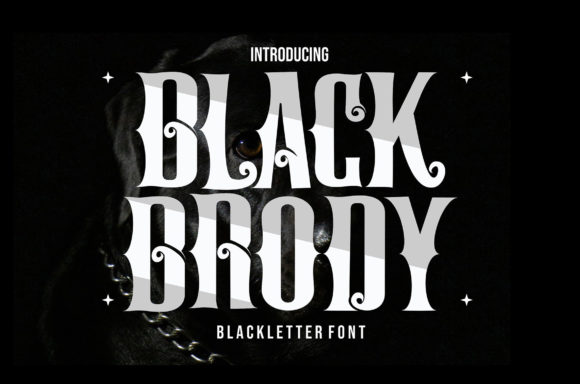
The Ultimate Guide to Black Brody Font: A Cool and Unique Blackletter Font
I’ll never forget the time I was working on a tattoo design project for a client who wanted a bold, edgy look. I had spent hours browsing through font libraries, but nothing seemed quite right. That was when I stumbled upon Black Brody Font, a cool and unique blackletter font that instantly caught my attention. With its original and assertive letters, it was perfect for the project. In this article, I’ll share my experience with Black Brody Font, its features, and how to make the most of it in your designs.
An Honest Review of Black Brody Font
What I Love About Black Brody Font
• ✨ Unique and original design: Black Brody Font stands out from other blackletter fonts with its distinctive and assertive letters.
• ✅ Perfect for bold designs: This font is ideal for creating striking designs that demand attention, such as tattoo designs, logo studio tattoos, shirt designs, posters, and branding.
• 💯 High-quality and versatile: Black Brody Font can be used for a wide range of projects, from digital designs to print materials.
While Black Brody Font is an excellent choice for many projects, there are a few things to keep in mind:
• 🤔 Limited use in formal designs: Due to its bold and edgy nature, Black Brody Font may not be suitable for formal designs, such as business cards or corporate branding.
• ⚠️ Legibility at small sizes: As with many blackletter fonts, Black Brody Font may be difficult to read at small sizes, so it’s best to use it at larger sizes or for headlines.
The Backstory of Black Brody Font
Black Brody Font was designed by a team of typographers who wanted to create a unique and assertive blackletter font. Inspired by traditional blackletter fonts, they added a modern twist to create a bold and edgy design that’s perfect for tattoo designs, logo studio tattoos, shirt designs, posters, and branding.
Q: What is Black Brody Font?
A: Black Brody Font is a cool and unique blackletter font made with original and assertive letters.
Q: What can I use Black Brody Font for?
A: Black Brody Font is perfect for tattoo designs, logo studio tattoos, shirt designs, posters, branding, and more.
Q: Is Black Brody Font easy to read?
A: Black Brody Font is a bold and edgy font, and like many blackletter fonts, it may be difficult to read at small sizes.